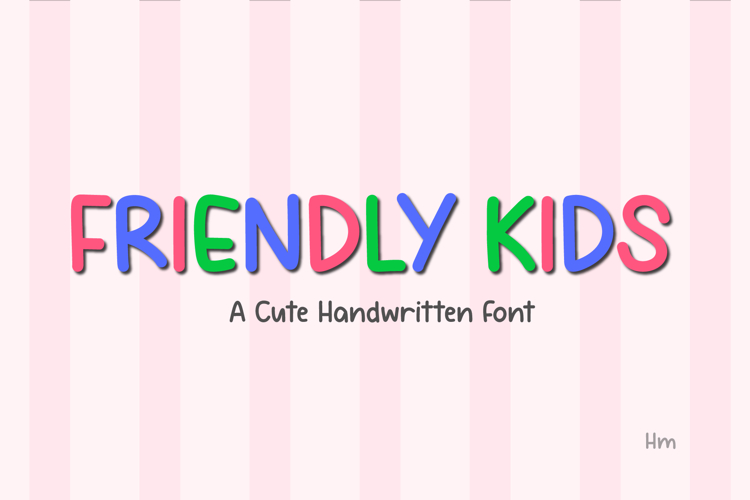
Friendly Kids is a cute and playful handwritten font designed especially for kids, teachers, and educational creators.
With rounded letter shapes and friendly strokes, this font is easy to read and perfect for young learners.